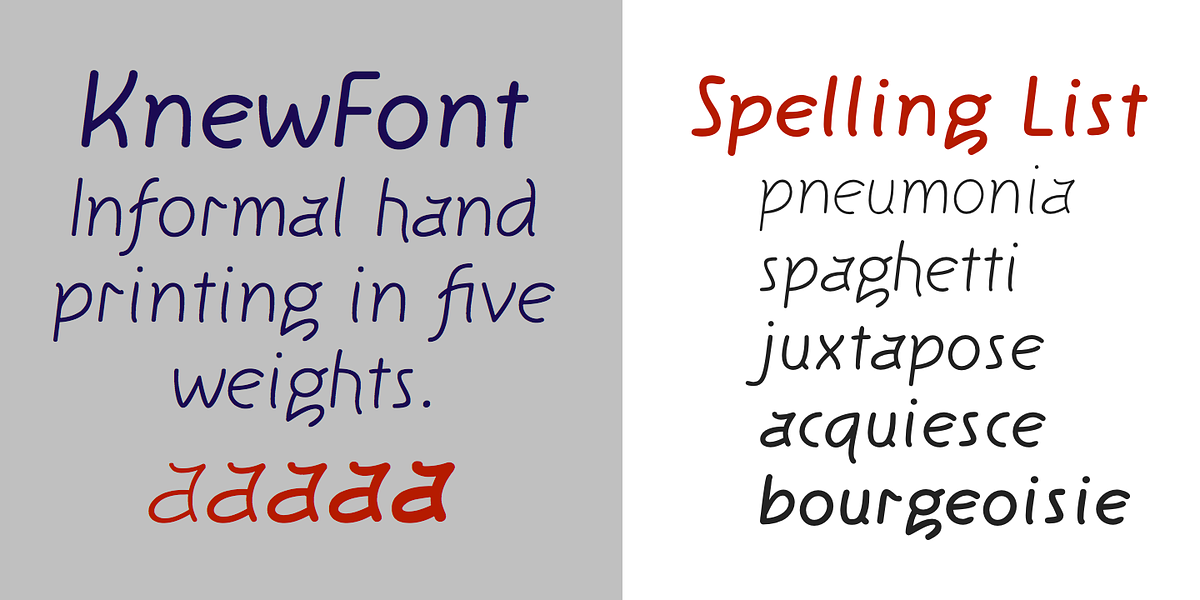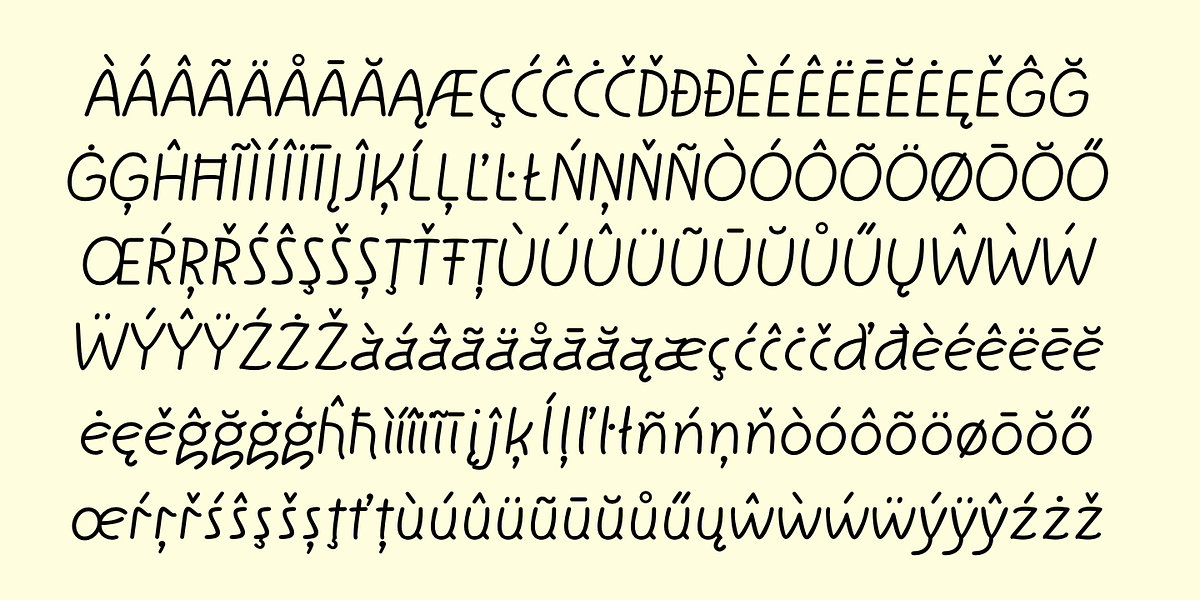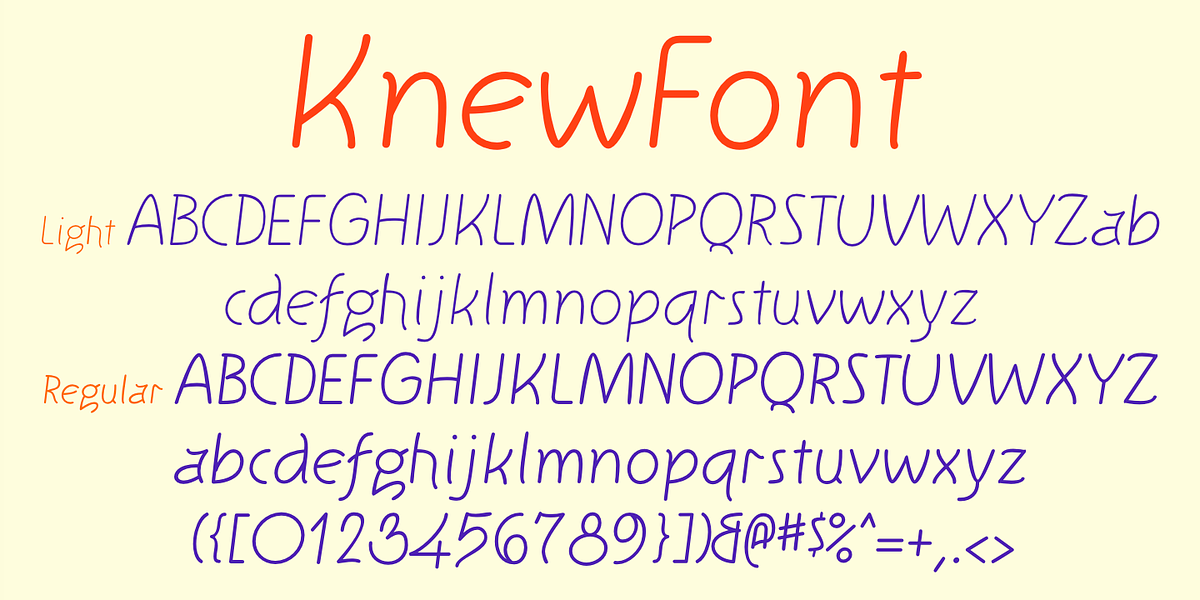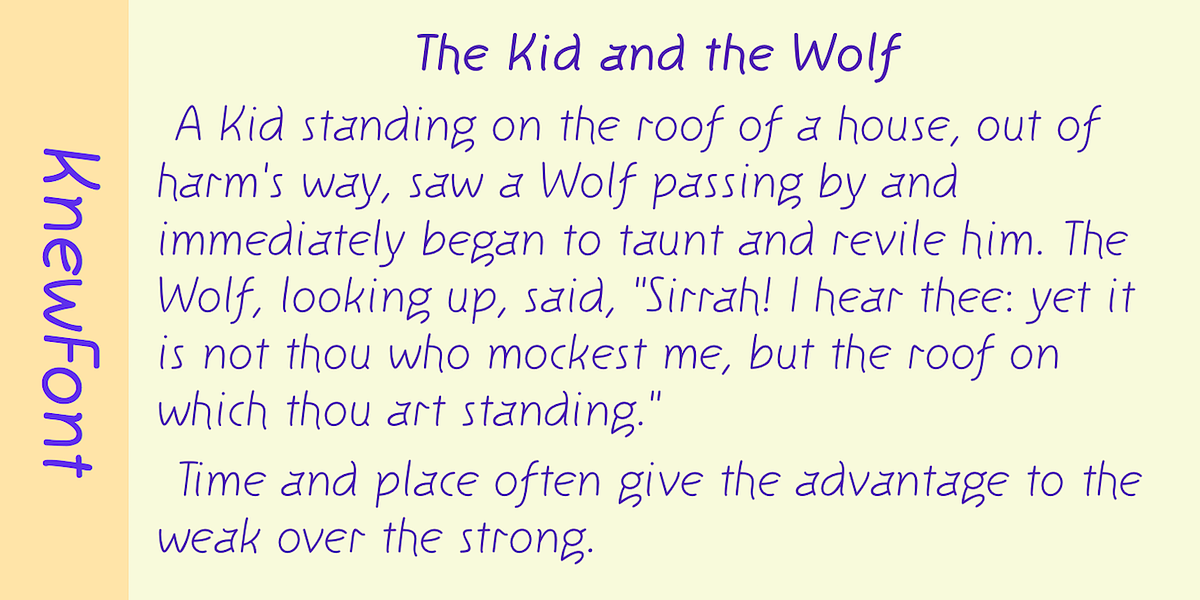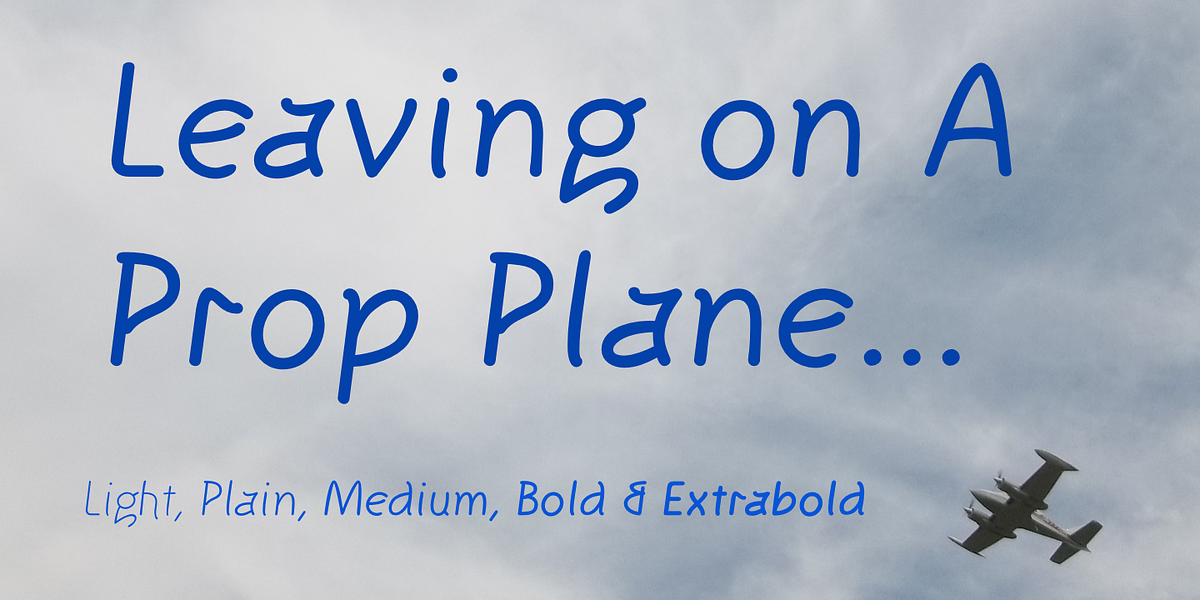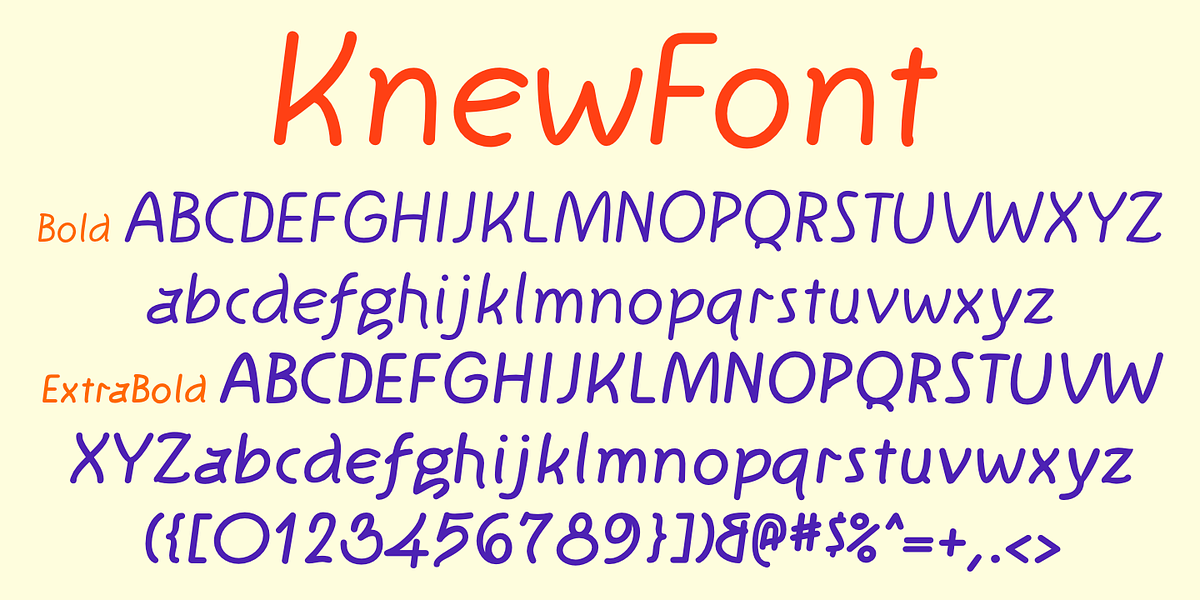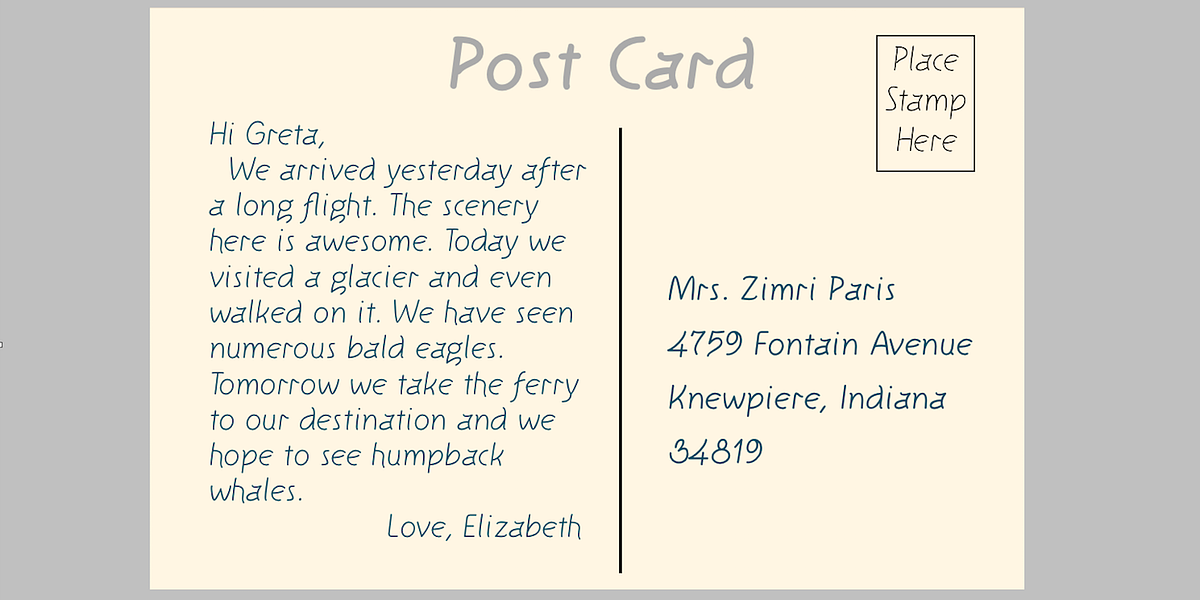
KnewFont
KnewFont emulates the appearance of carefully handwritten text, with each letter leaning to the left. It offers versatility through five distinct weights, allowing for adjustments in boldness and emphasis.